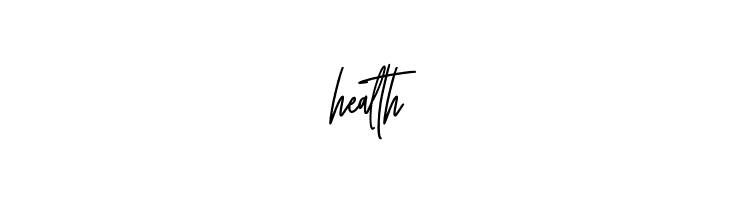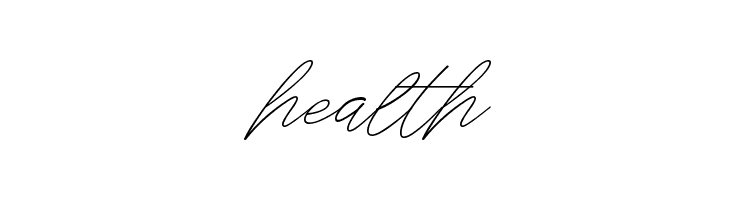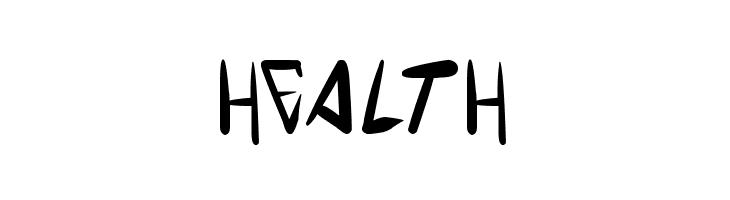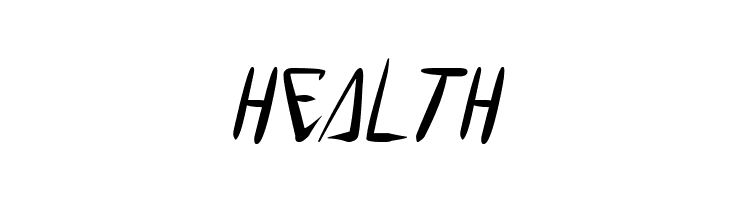
An elegant, flowing script font with interconnected letters and graceful curves.
A sophisticated and elegant script font with fluid, cursive strokes.
A dynamic, expressive handwritten font with fluid, interconnected strokes.
A playful handwritten font with fluid, artistic letterforms.
A dynamic, angular font with a futuristic and edgy design.
A bold, angular font with a futuristic and edgy style.
A bold, italic font with sharp, angular lines and a futuristic style.
A dynamic, angular italic font with a futuristic and edgy style.
A futuristic, bold, and angular font with a geometric design.